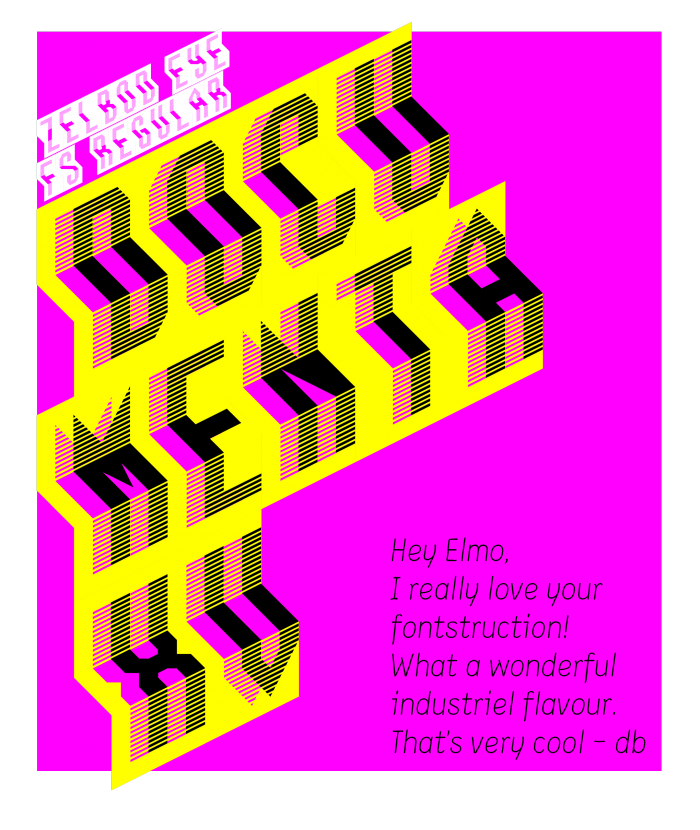
An interesting take on the theme! The striped area seems a bit hard to read though; think it would look better on larger display sizes.
An intriguing design, very unusual and a great entry for the reversecomp :)
A very good approach to the theme! A instant fave.
Unique folded and slightly overlapping letterforms with a great impact on a larger scale.
Really nice 3D shift effect, elmo. An upward diagonal sample that aligned the shift would be really effective.
Very nice left leaning font with 3D effect. I can only agree with the previous comments. A good entry to the competition; it may need a demo with large letters for stronger visual impact. 10/10
Nice Paper fold design!